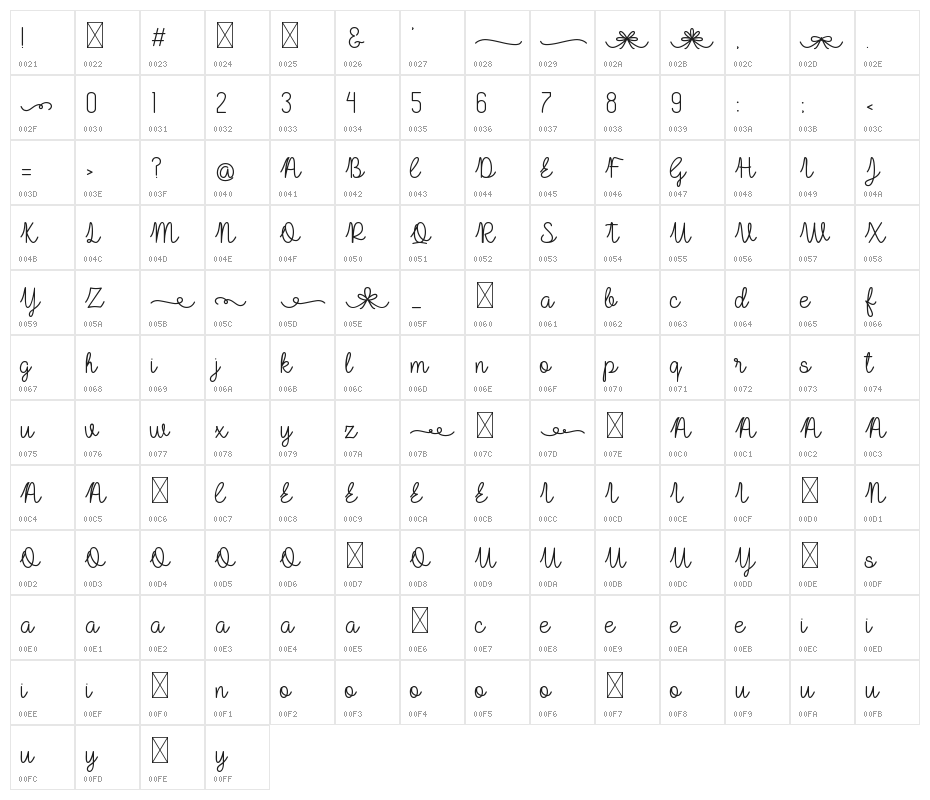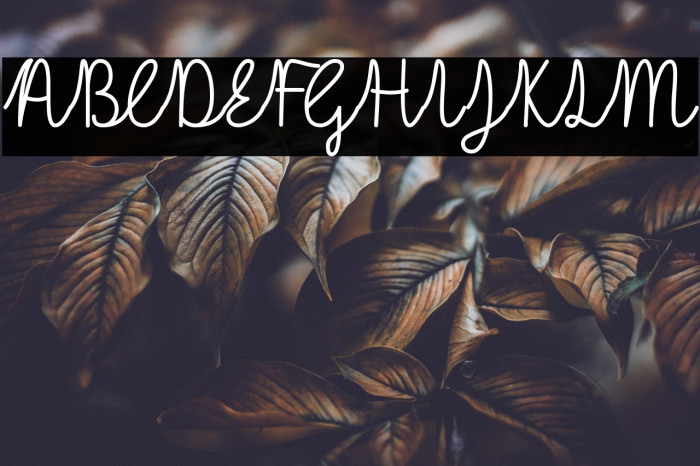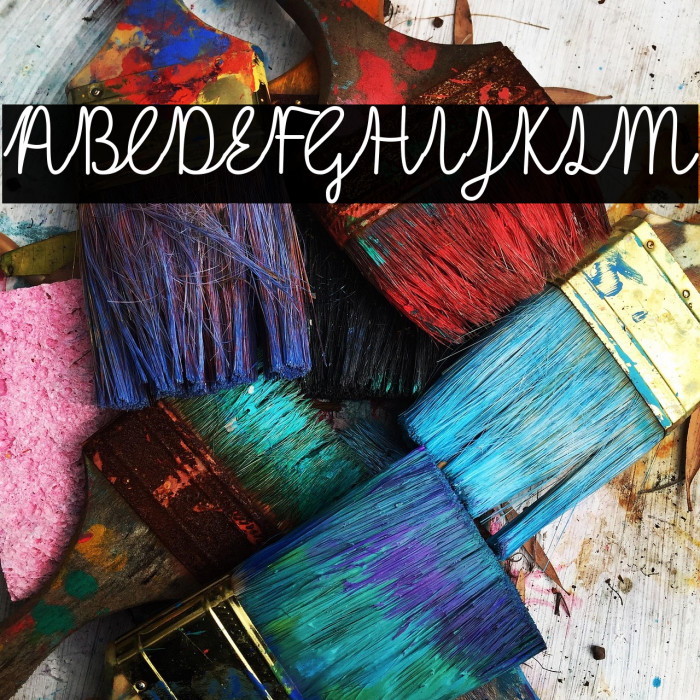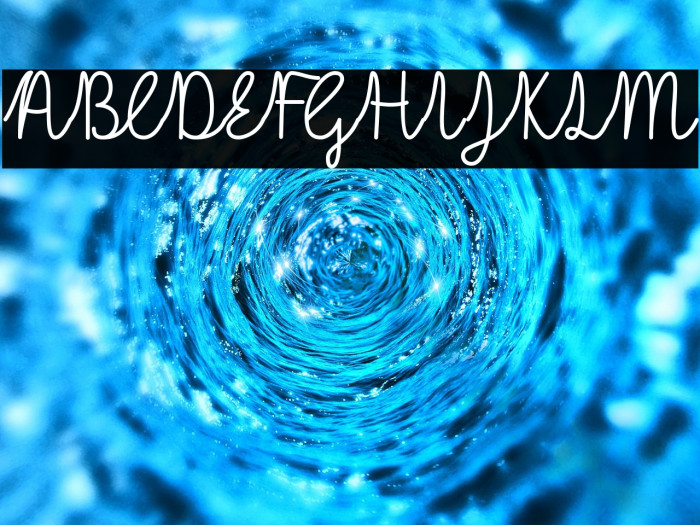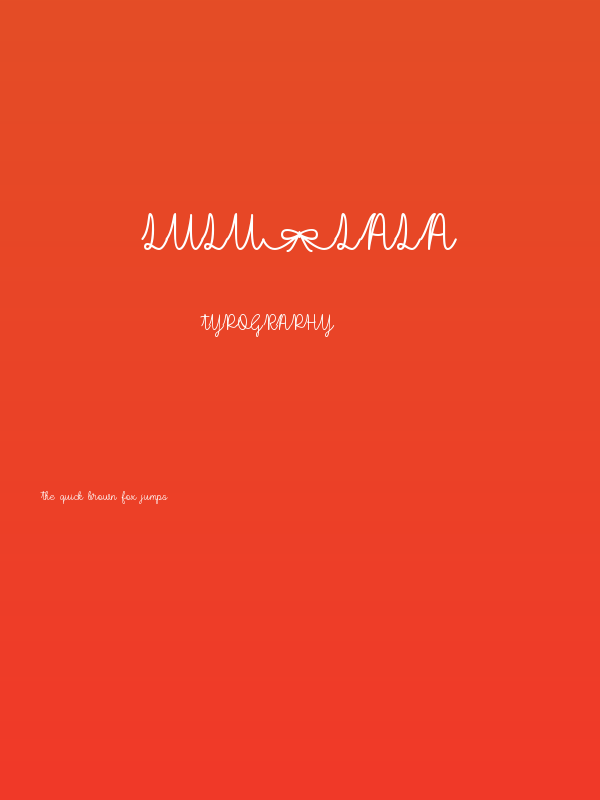
Lulu-Lala Font
Lulu-Lala Description
This font features a playful and whimsical script style with a handwritten appearance. The uppercase letters are characterized by their flowing, connected strokes, giving a sense of movement and fluidity. The lowercase letters maintain a consistent style, with rounded edges and a casual, friendly feel. The numerals are clear and legible, complementing the overall design. Special characters and decorative elements add a touch of elegance and charm, making this font versatile for various creative projects.
| Proposed Projects | Ideal for greeting cards, invitations, personal branding, and playful logos. |